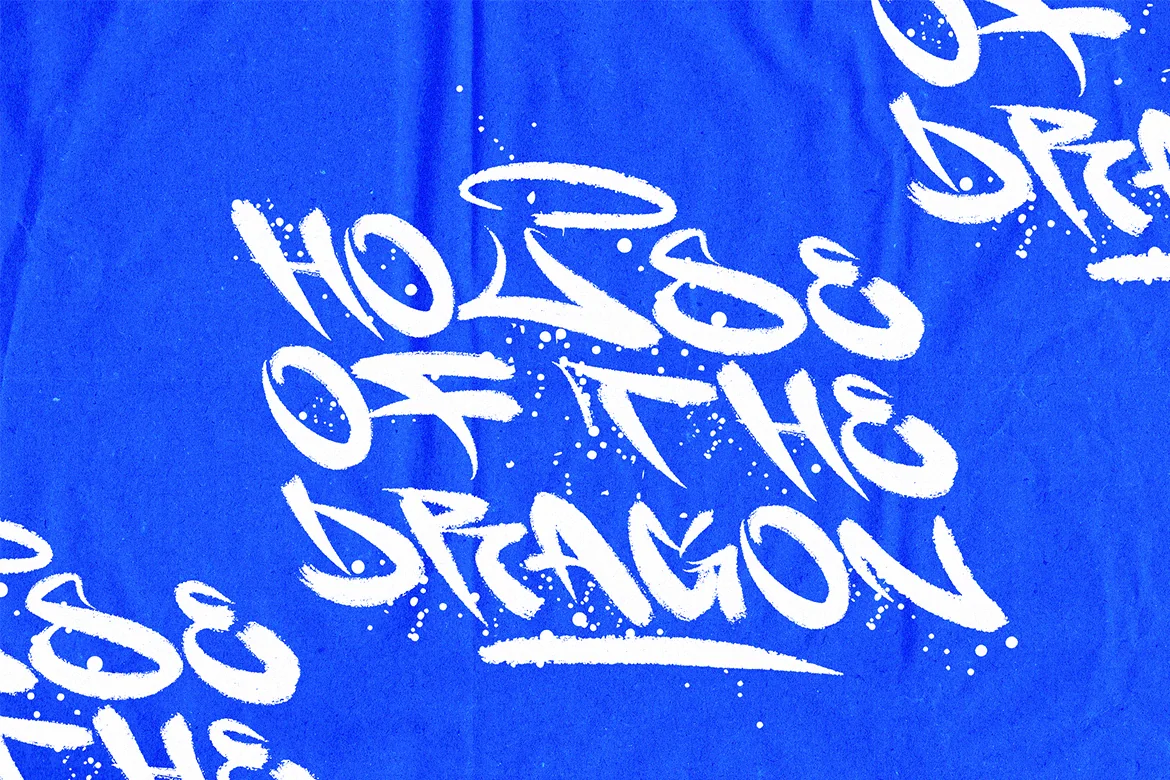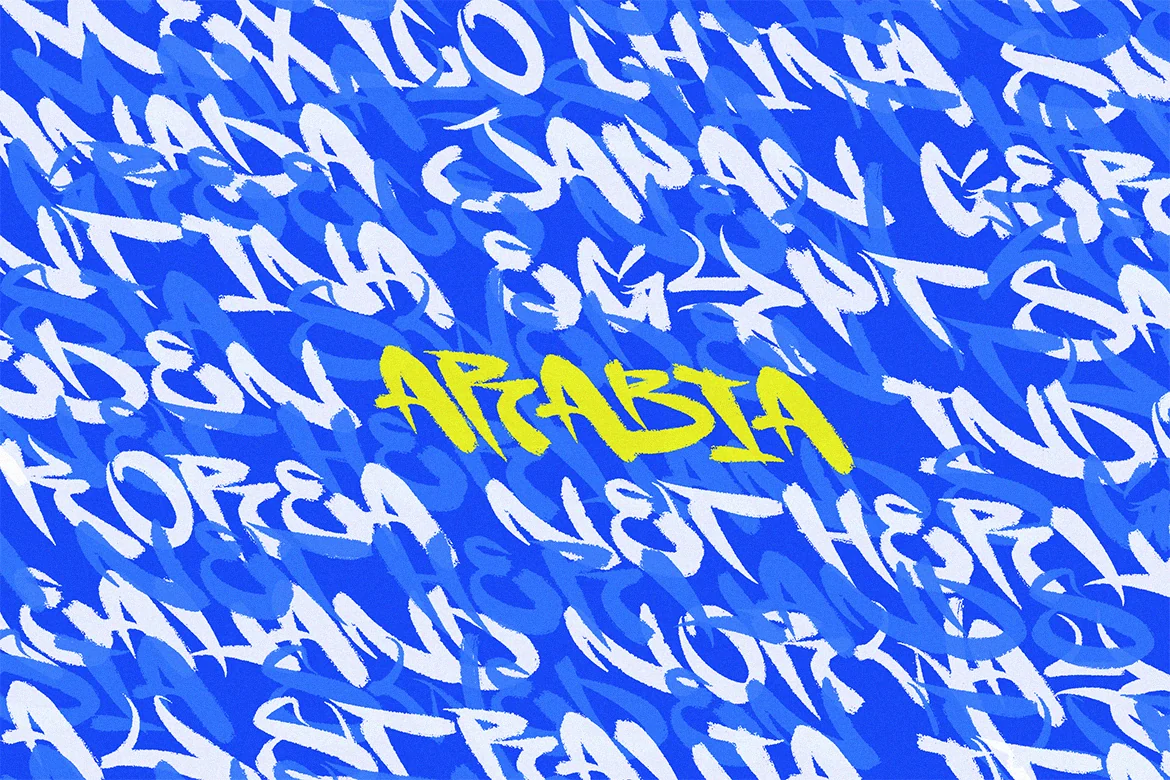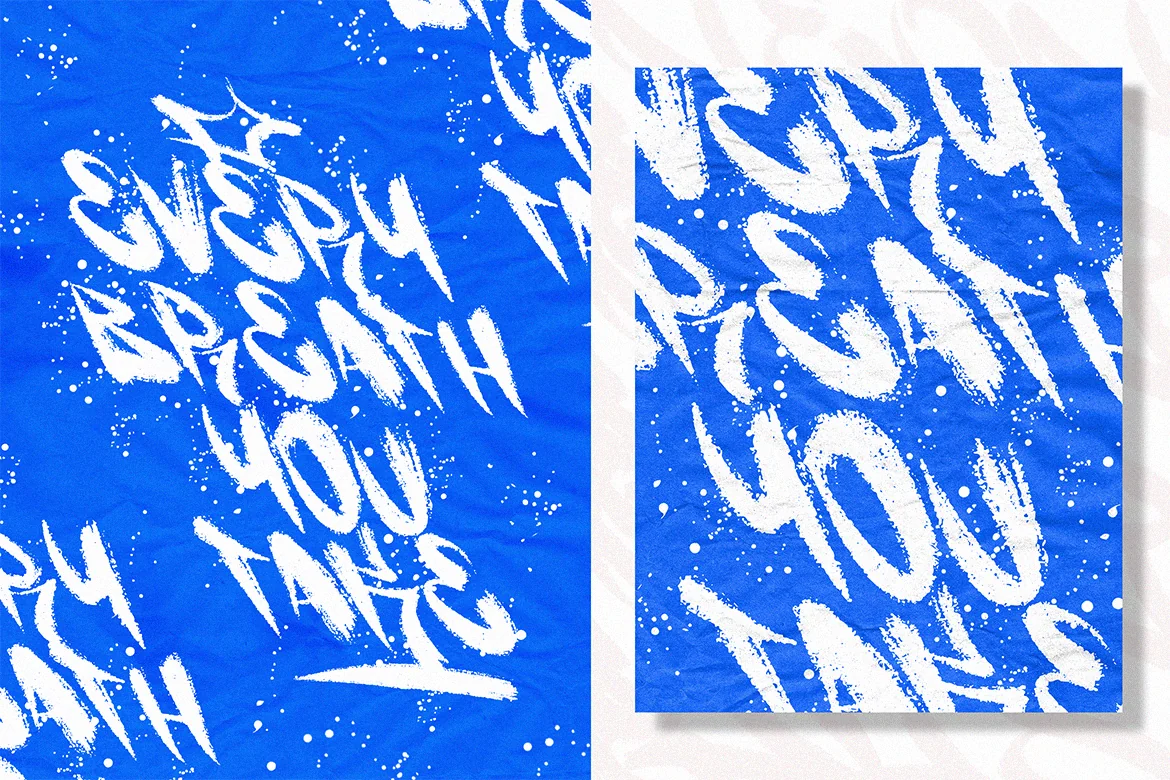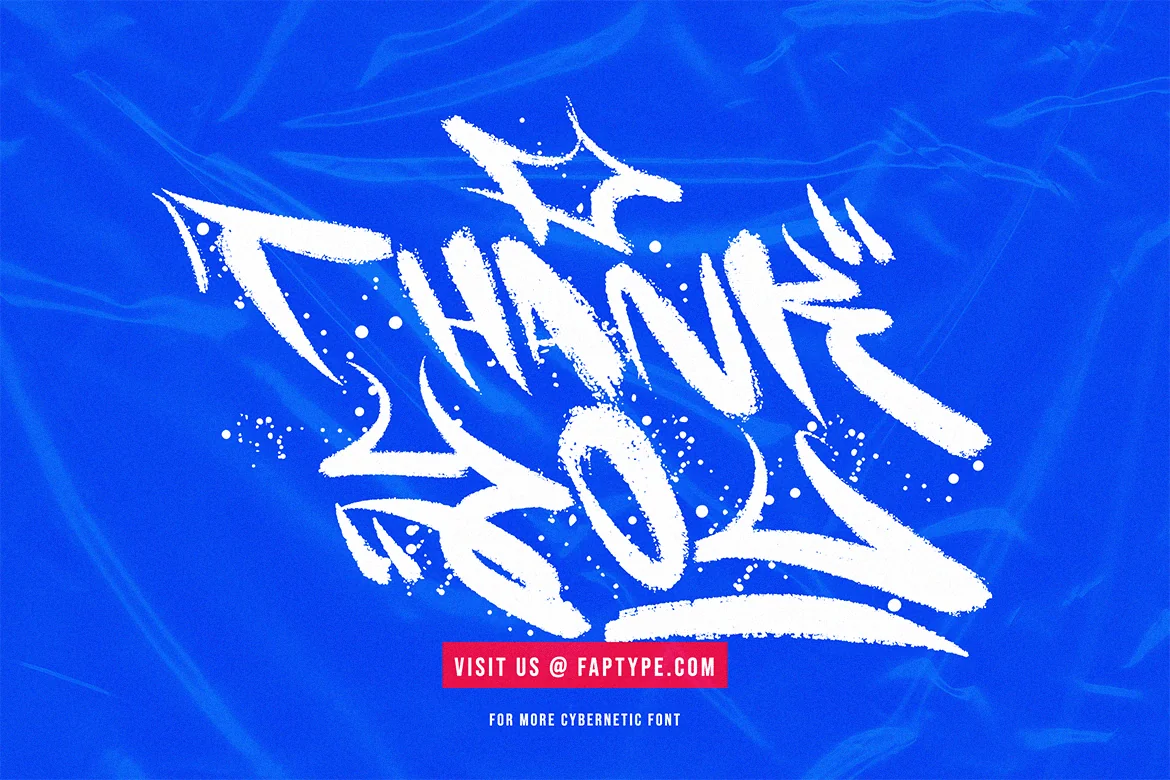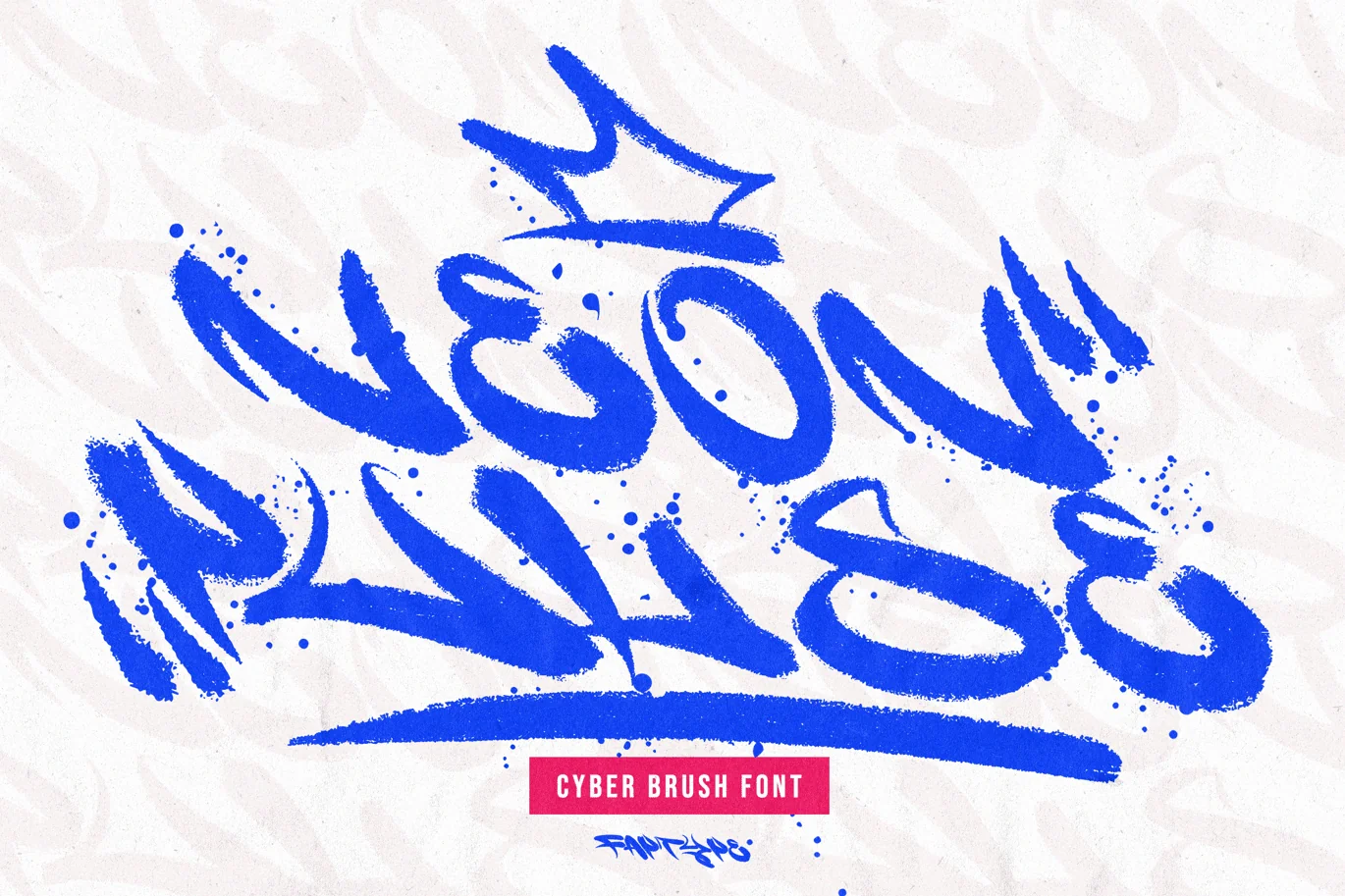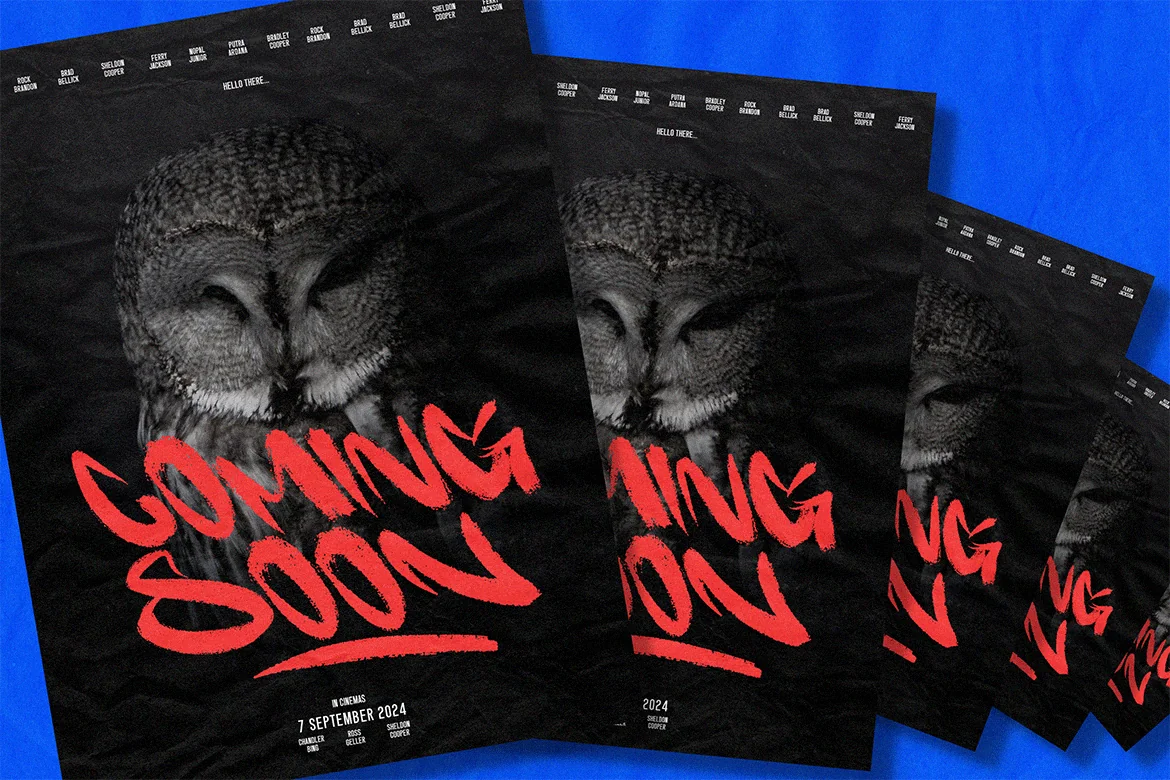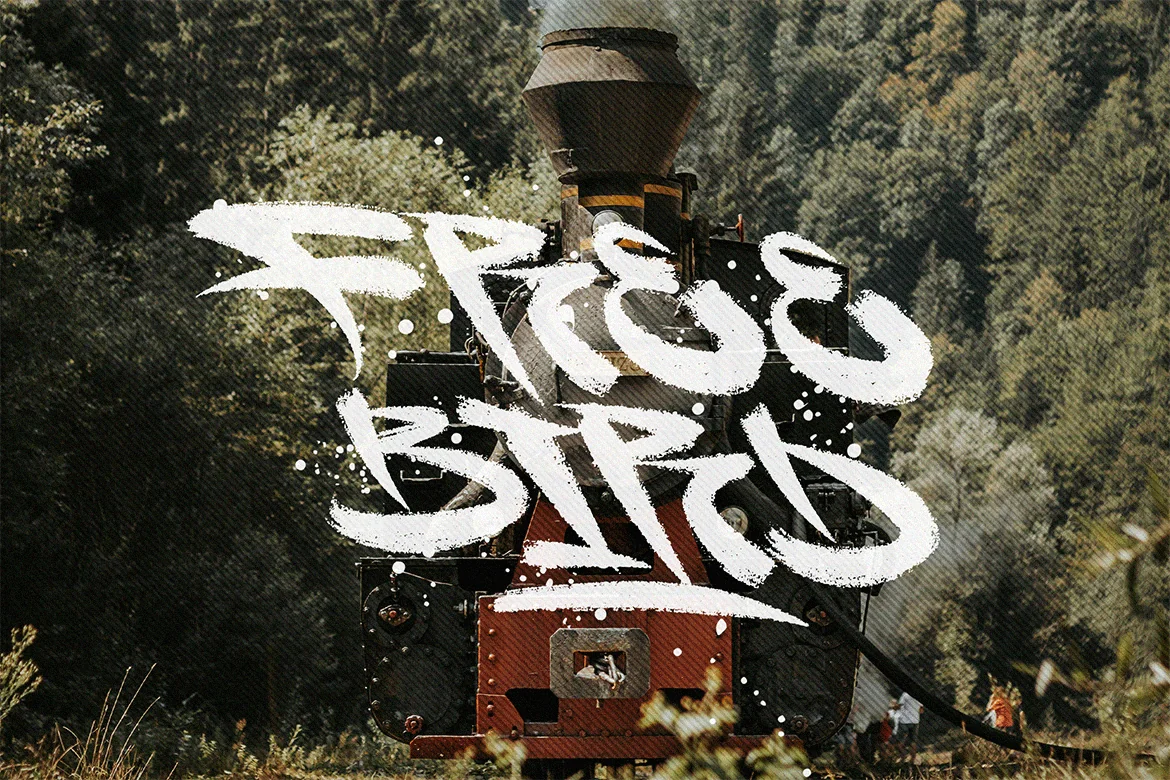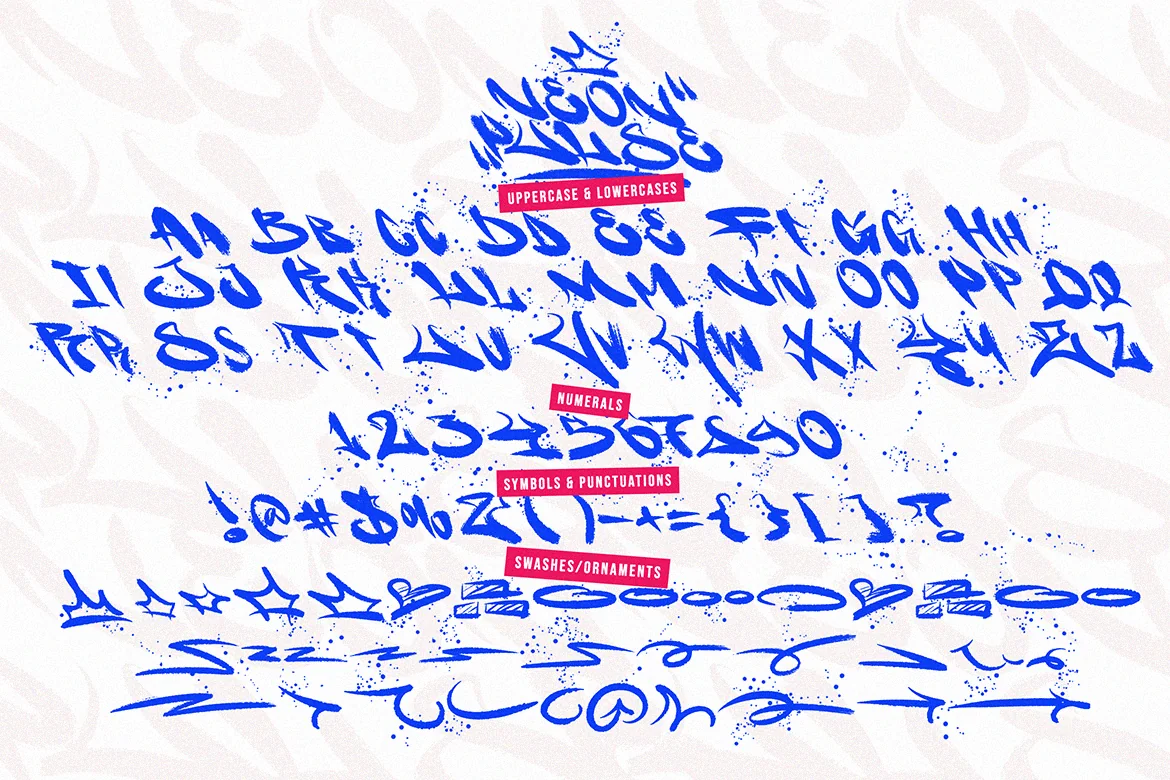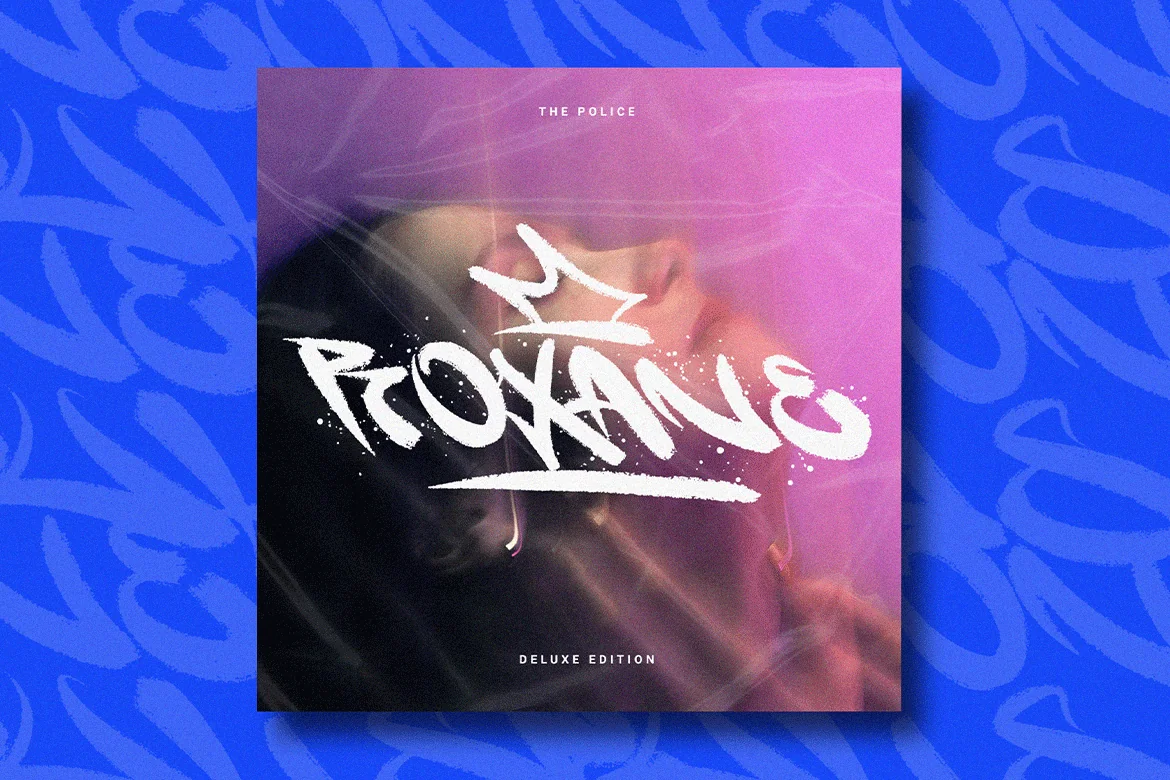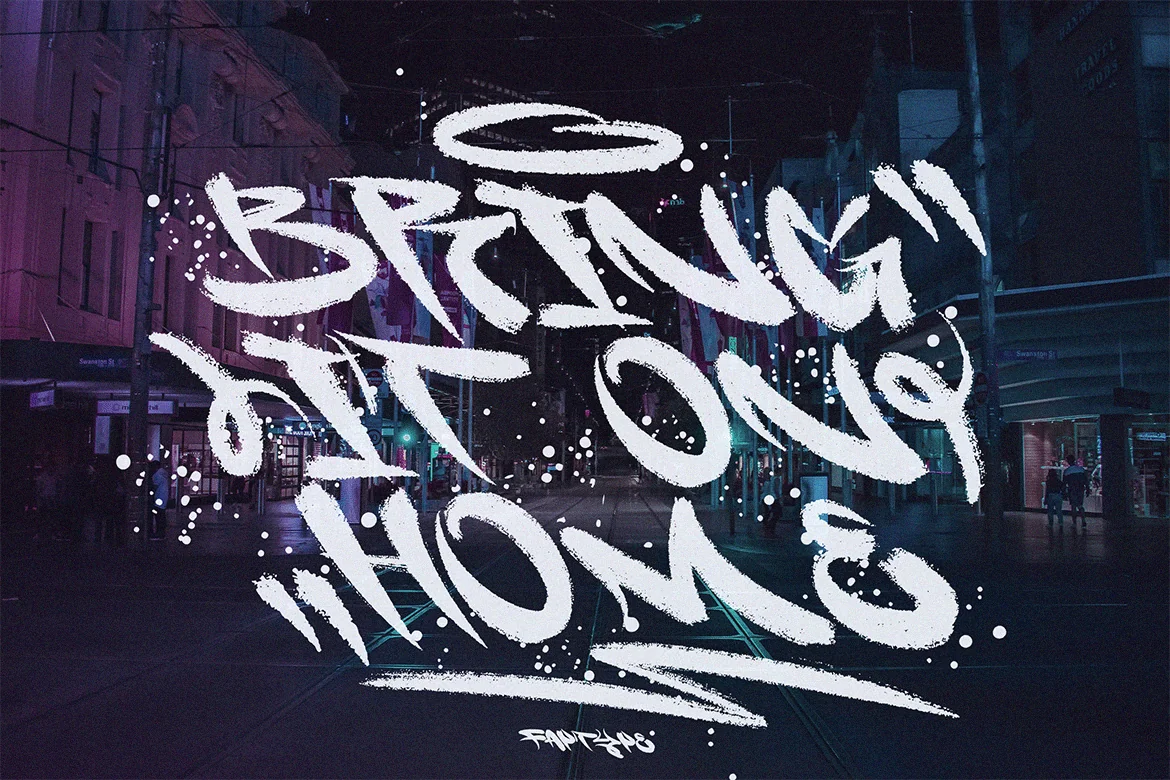
Neon Pulse | Cyber Graffiti Brush Font
Introducing Neon Pulse, a cutting-edge cyber brush font designed to bring a powerful, electrifying energy to your creative projects. With its bold strokes and neon-inspired style, Neon Pulse captures the spirit of urban graffiti while seamlessly incorporating futuristic elements. This typeface is perfect for creating eye-catching logos, striking posters, dynamic social media graphics, and distinctive branding.
The raw, hand-drawn look of Neon Pulse adds a sense of authenticity, while its vibrant glow evokes the excitement of city lights and modern technology. It embodies a rebellious yet refined aesthetic, making it ideal for brands and projects that seek to stand out from the crowd with confidence and originality.
Elevate your designs with the unmistakable impact of Neon Pulse, and let this unique font infuse your message with energy, creativity, and a bold visual statement. Illuminate your ideas and captivate your audience with Neon Pulse—where the pulse of modern street art meets the glow of the future.
Neon features:
- A full set of upper & lowercase characters
- Numbers & punctuation
- Multilingual language support
- +345 Glyphs
- +137 Graffiti Swashes
- OpenType Features